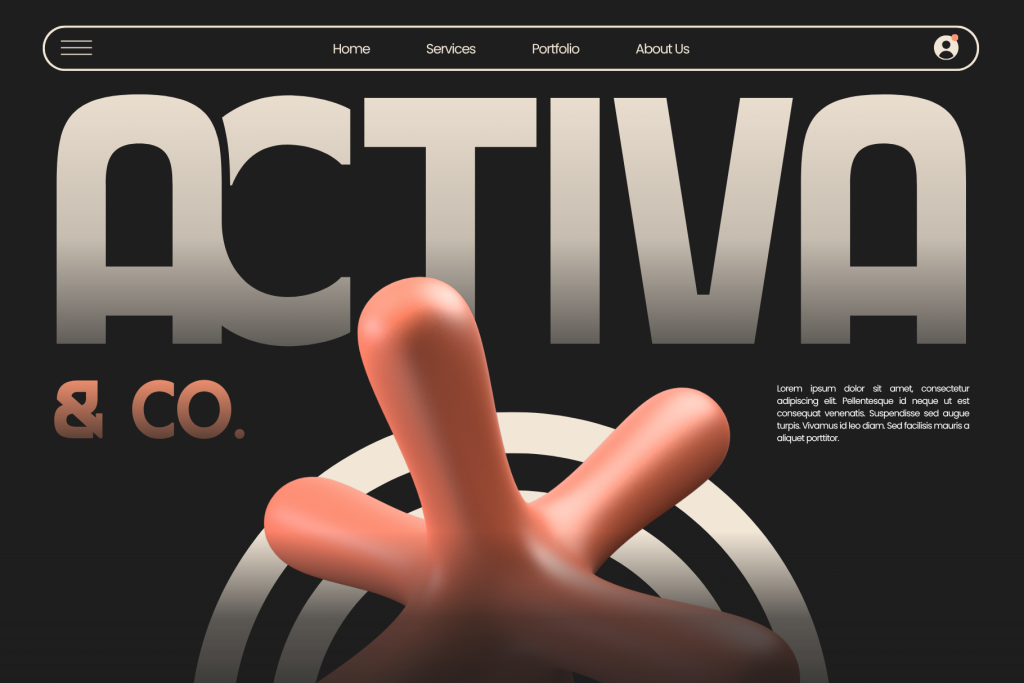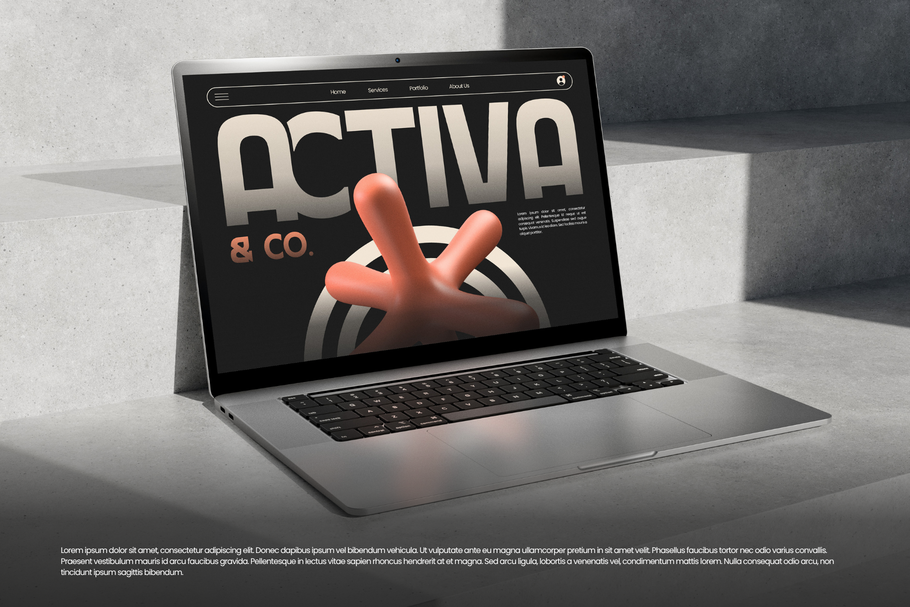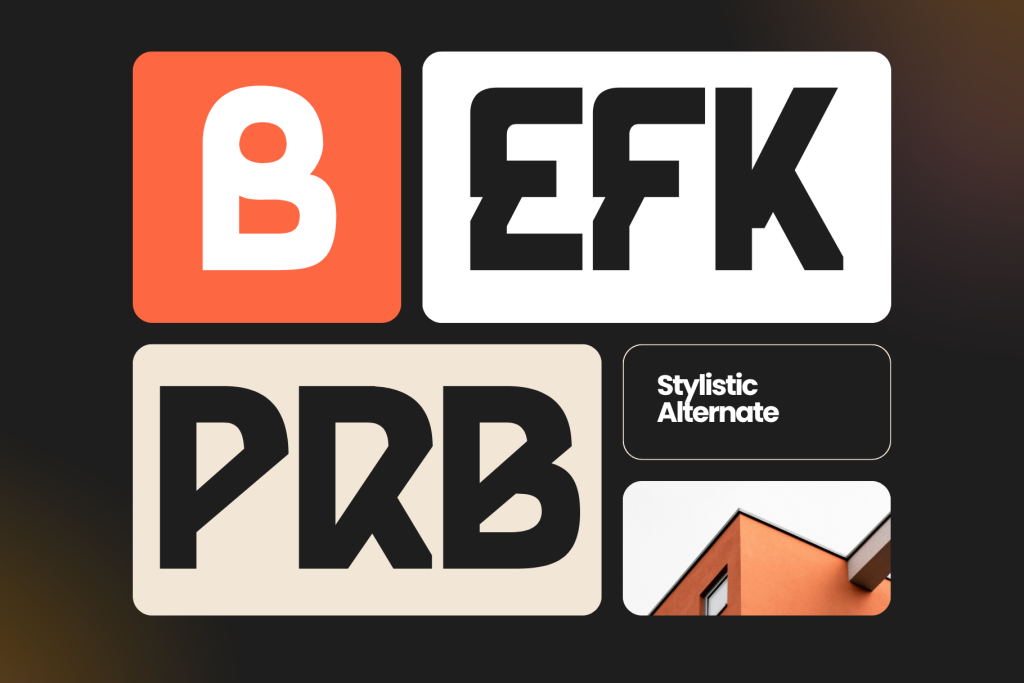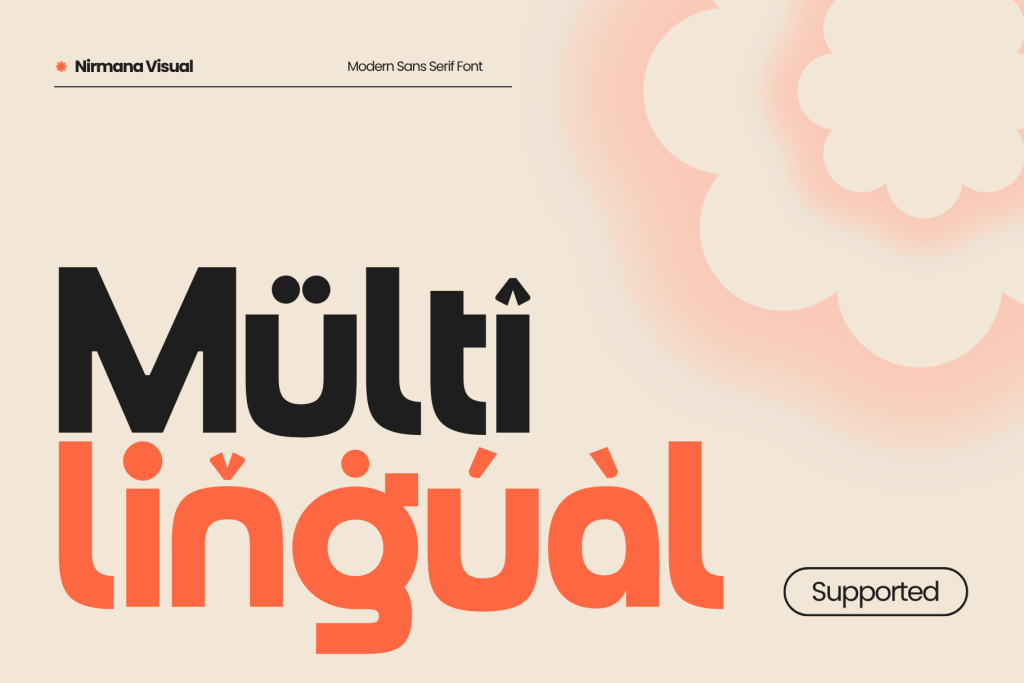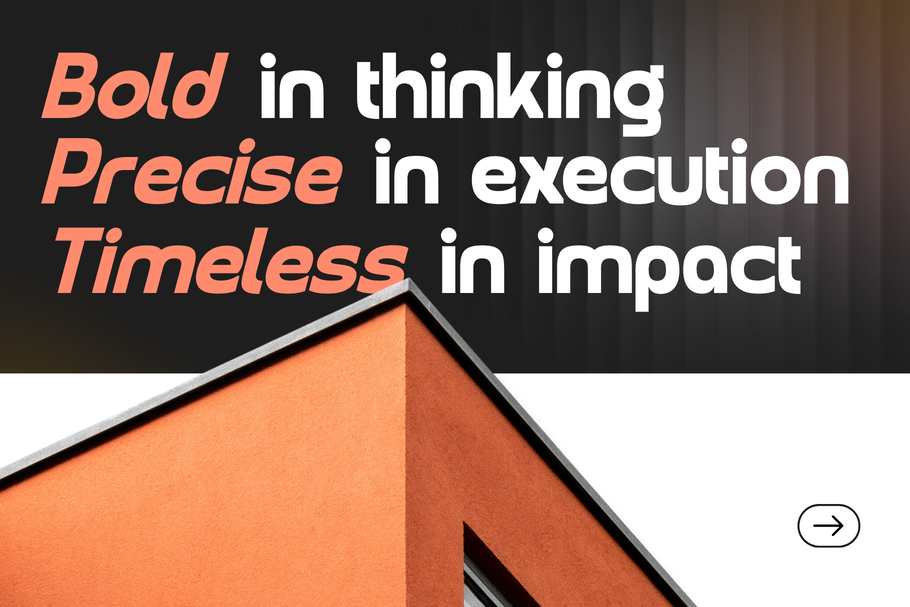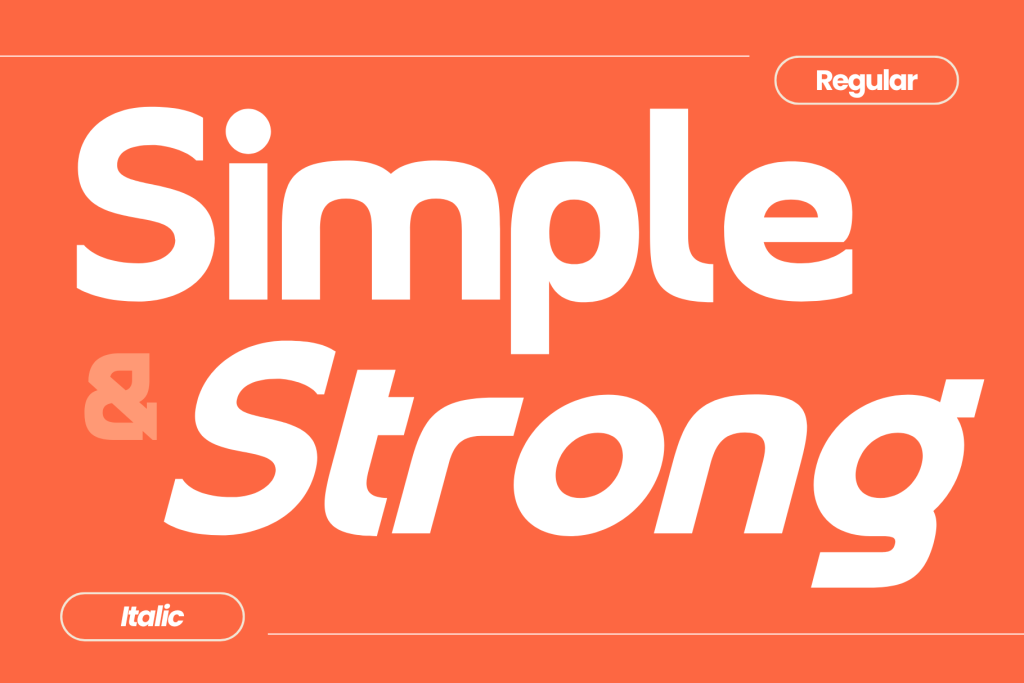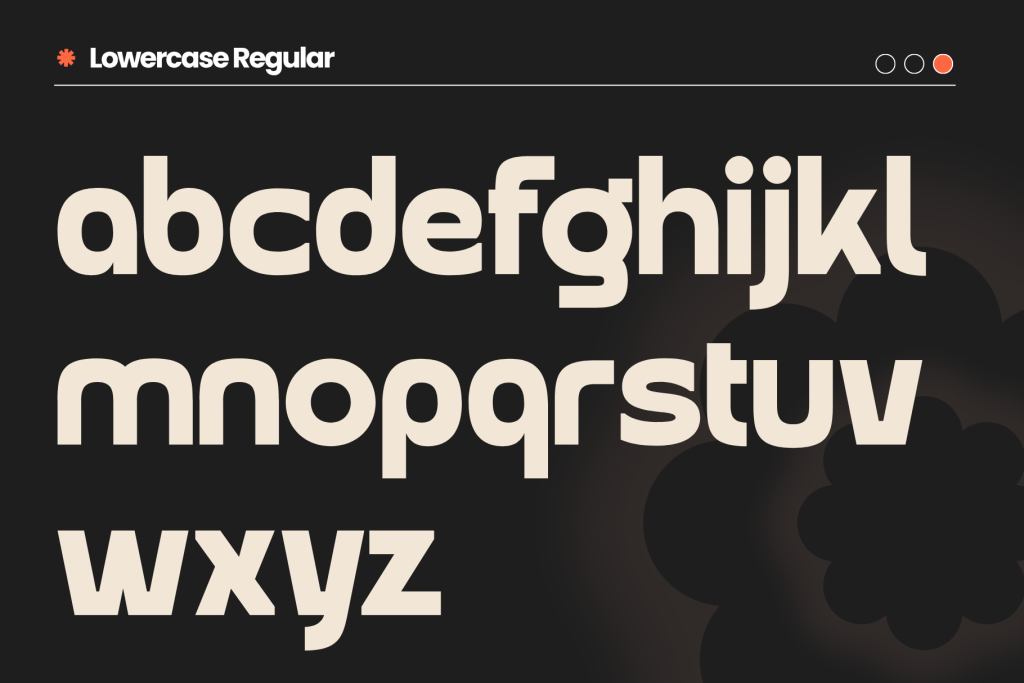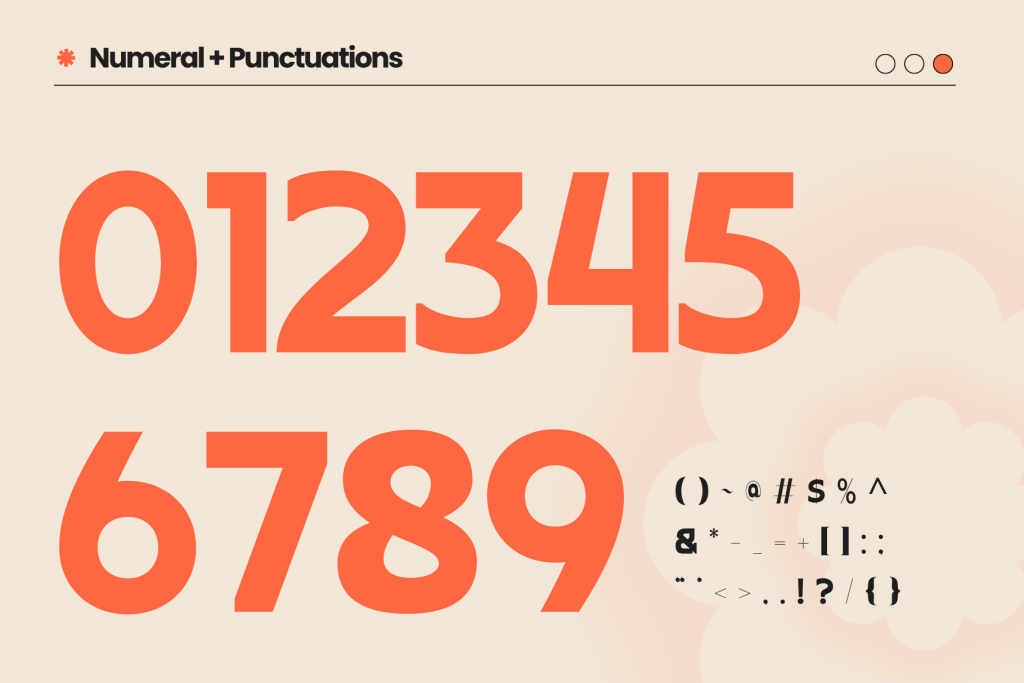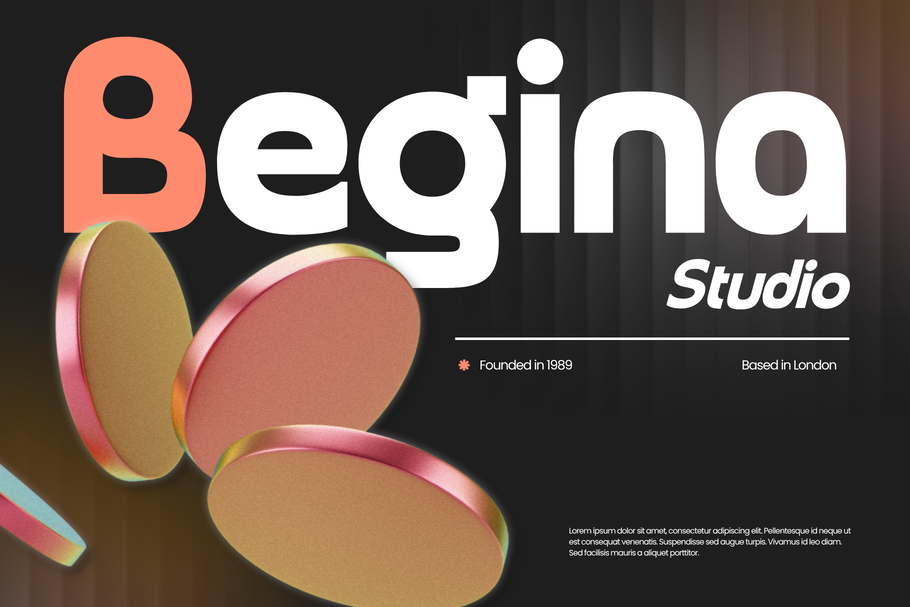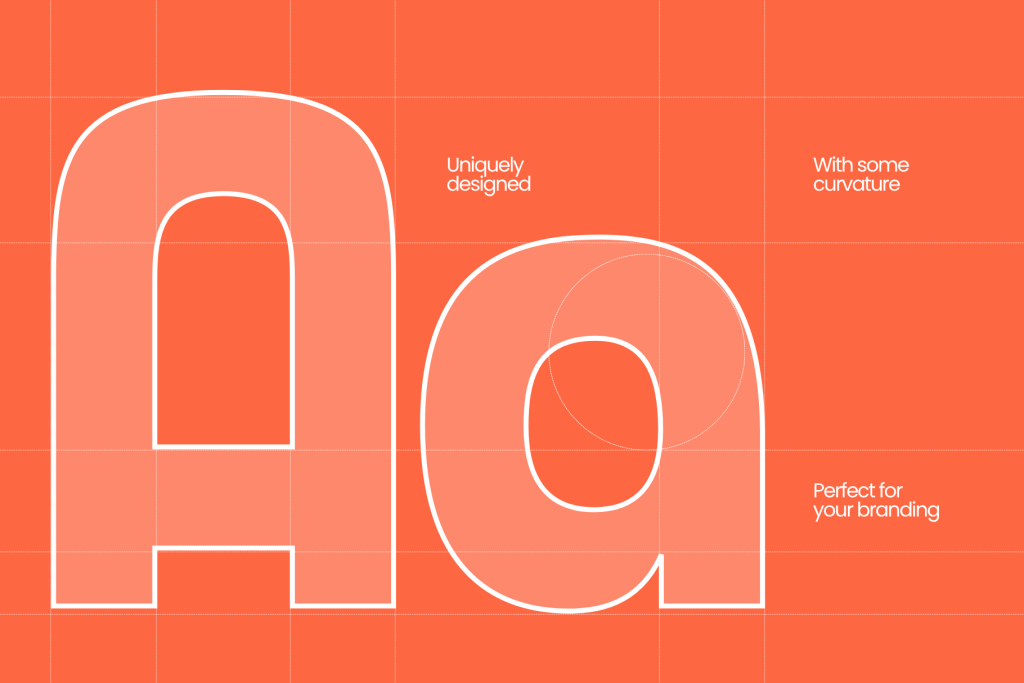
Orenza Bold – Company Logo Font
Overview
Orenza Bold is a modern and professional corporate logo font designed to make every word stand out with confidence. Available in Regular and Italic styles, it offers a clean geometric shape with balanced proportions, ideal for creating strong brand identities. Perfect for logo design, website headlines, business cards, and personal branding, Orenza Bold brings elegance and authority to your visual communication with a timeless corporate touch.
• Multilingual Support
• Regular & Italic
• Company Logo Font
Orenza Bold offers beautiful typographic harmony for a diversity of design projects, including logos & branding, social media posts, advertisements & product designs.